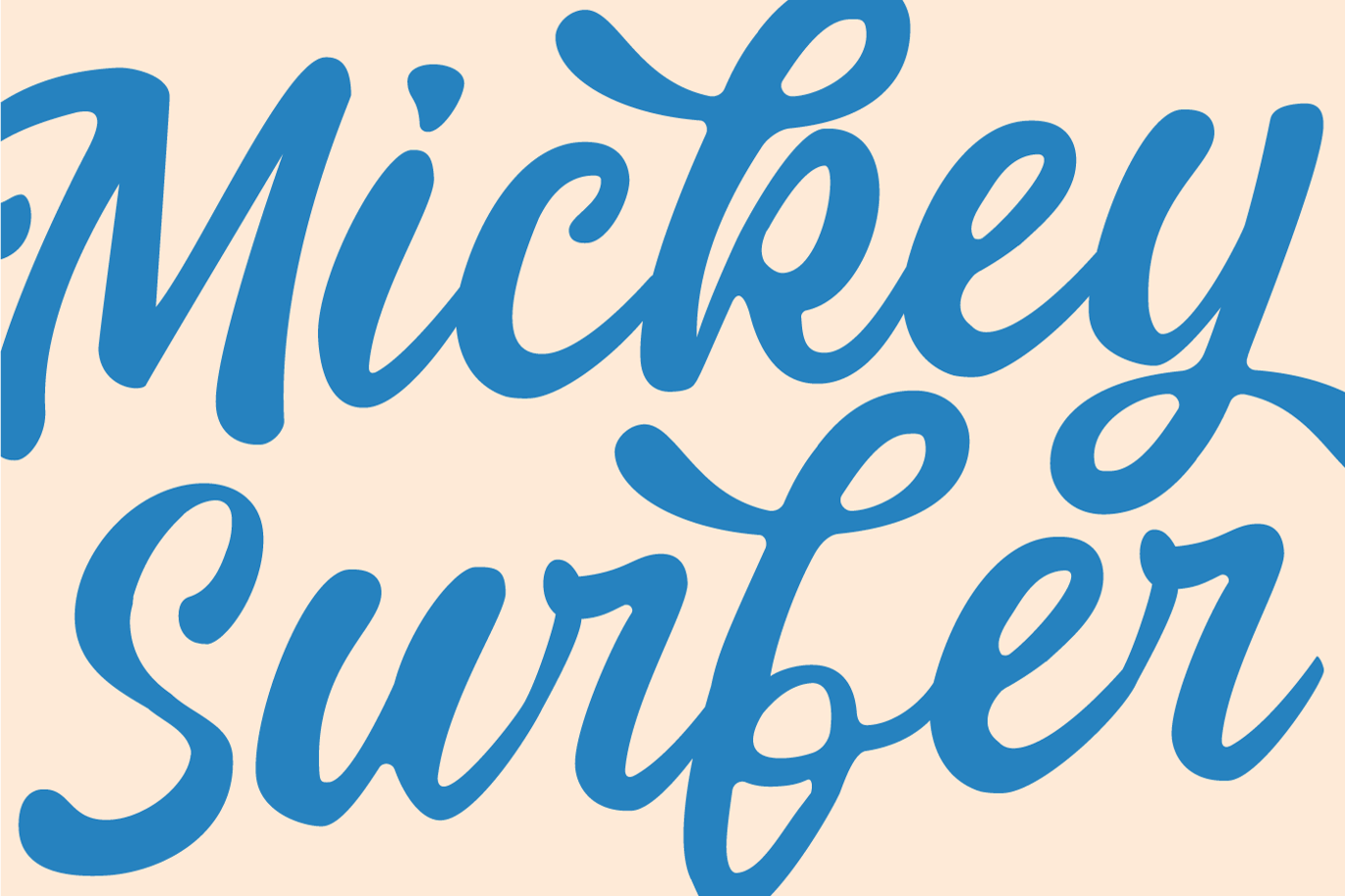
Balney is a heavy script with rounded stroke ends, so it looks more like a marker or a soft brush than a pen. The capital B on the specimen loops back on itself, and the y ends in a long, curling tail. The second preview, “Mickey Surfer” in blue on cream, is a good hint at the mood: beach towns, ice cream and summer merch.
Best uses for Balney
- Surf, skate and beachwear logos
- Ice cream, café and bakery branding
- Summer event posters
- T-shirt and cap prints
- Packaging labels and stickers
Balney looks best next to a straight, solid sans. Montserrat in Bold capitals works for taglines like the “Rounded Script Font” line in the specimen. Rubik keeps a friendly tone for body copy. For a vintage twist, add Oswald for prices and dates.
Balney – Rounded Script Font